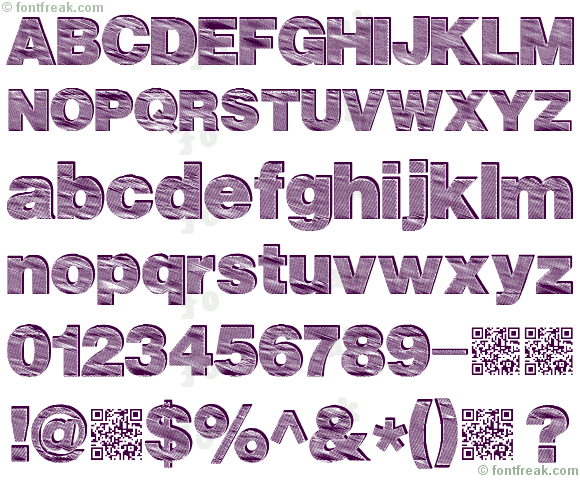
Space
The Space font by Xerographer Fonts is a striking display typeface that captures a sense of adventure and curiosity, perfectly suited for projects that seek to evoke a cosmic or futuristic theme. This font features a unique design with a bold stroke weight and an intricate pattern that adds depth and visual interest. The contrast between the solid and patterned areas creates a dynamic look, making it an eye-catching choice for various applications. The spacing is well-balanced, ensuring readability while maintaining its decorative flair.
Ideal use cases for the Space font include movie posters, especially for science fiction or adventure films, where it can draw attention and convey a sense of excitement. It also works beautifully for event flyers and promotional materials aimed at tech conventions or space-themed events, where its unique style can help capture the audience's imagination. Graphic designers may find this font particularly useful for branding elements that require a modern and playful touch, such as logos or product packaging. Additionally, the Space font is a great choice for children's books or educational materials, offering an engaging way to present information.
What sets the Space font apart is its distinctive balance of playfulness and sophistication. The combination of its bold design and intricate details makes it stand out in a crowded marketplace of typefaces. With the Space font free download available, it's an opportunity for creators to add a unique touch to their designs without compromising on quality or style.